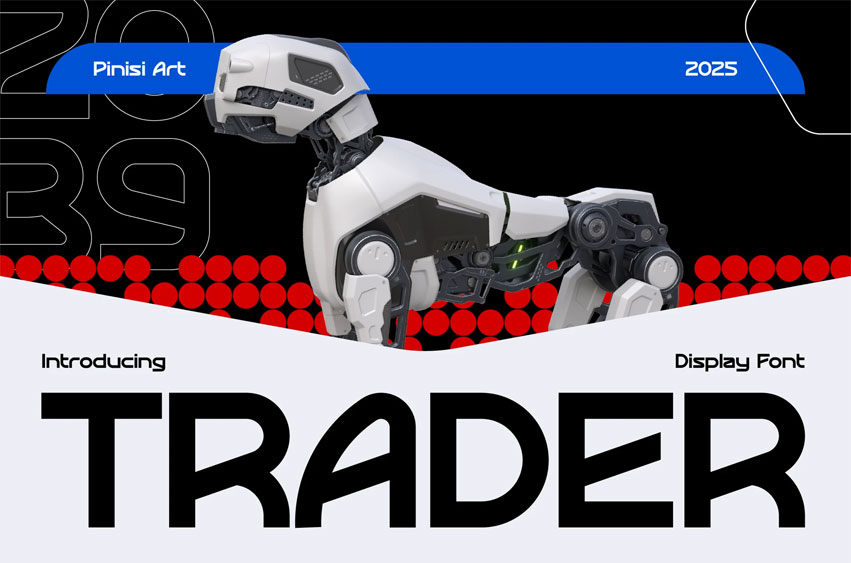
Trader Font is a futuristic display typeface designed for creators who love bold innovation and geometric precision. Its rounded edges and mechanical flow bring a sense of movement and energy to every letter, creating a seamless fusion of tech aesthetics and visual clarity. Built with a cyber-mecha tone, TRADER stands out in sci-fi posters, digital branding, and UI interfaces where bold headlines demand attention.
With its low contrast, balanced proportions, and dynamic terminals, this typeface captures the essence of modern robotics, AI systems, and digital speed. It’s clean yet expressive, structured yet flexible — perfect for futuristic concepts, esports branding, and tech startups looking to elevate their identity.
Designed for futuristic branding, editorial covers, app UI, and gaming posters, TRADER gives your design a forward-thinking and digital-driven look. Its sharp geometric forms and strong presence make it ideal for technology events, cyberpunk aesthetics, and architectural visualizations.
When your project needs to communicate innovation, motion, and high performance, TRADER delivers a unique letterform identity that feels both mechanical and human, adding power to your visual storytelling.
Key Features ;
- Futuristic Geometry – Crafted with clean mechanical shapes that enhance digital layouts.
- Bold Display Power – Excellent for headlines, logos, posters, and large-format visuals.
- Tech-Driven Aesthetics – Inspired by robotics, AI, and advanced engineering design.
- Readable & Functional – Balanced spacing ensures clarity across modern interfaces.
- Perfect for Branding – Ideal for gaming titles, tech startups, and creative studios.